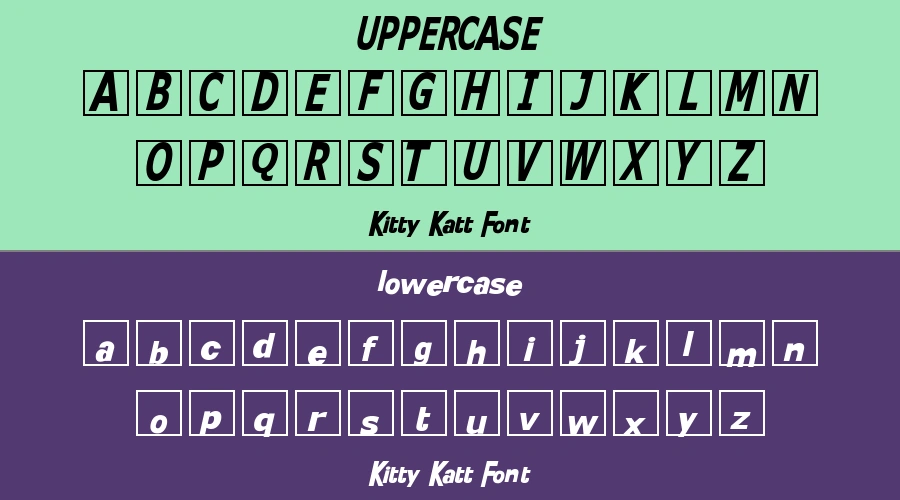
About Kitty Katt Font
When typographic excellence matters most, Kitty Katt Font delivers through its thoughtful blend of impactful forms and originality. Specially crafted for billboard design, it offers the accuracy and market credibility required for sophisticated design work. Every detail serves a purpose.
The character set showcases thoughtful details like bold expressions alongside functional mid-word alternates. This proves especially valuable in certification marks, where versatility directly influences results. Particular attention was paid to proportion and scholarly tradition during development.